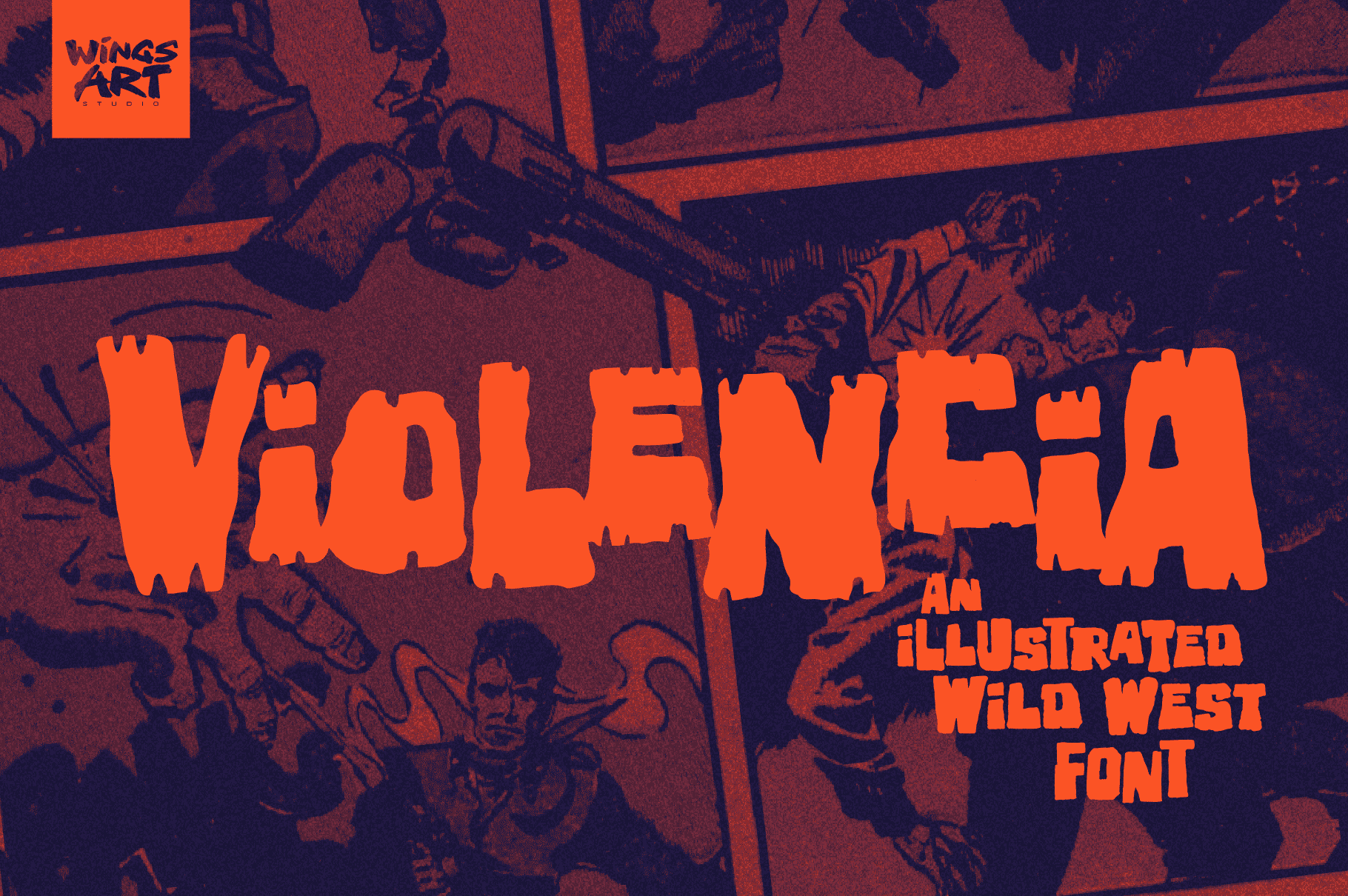
Violencia: Illustrated Wild West Font
Violencia – An Illustrated Wild West Font Violencia is a hand-dawn font inspired by the legendary age of the Wild West and its tales of gunfights, train robberies and blood vendettas. It’s an all-caps design the evokes the textured style of vintage western movie posters, comics and novels. The Violencia font family includes all-caps uppercase and lowercase characters, along with numerals, punctuation, symbols and language support. It also comes with a complete set of alternative characters, all in the 3 unique styles of, Distressed, Outline and Block. Contents: Violencia: Regular Block Violencia: Regular Distressed Violencia: Regular Outline Violencia: Alt Block Violencia: Alt Distressed Violencia: Alt Outline Violencia: Symbols OTF, TTF and WOFF Formats Preview PDF For more great illustrated fonts browse our ever-growing collection at Wingsart Studio. Special thanks to the Digital Comic Museum for the background images used in these visuals. All artwork is in the public domain and used for visual purposes only.